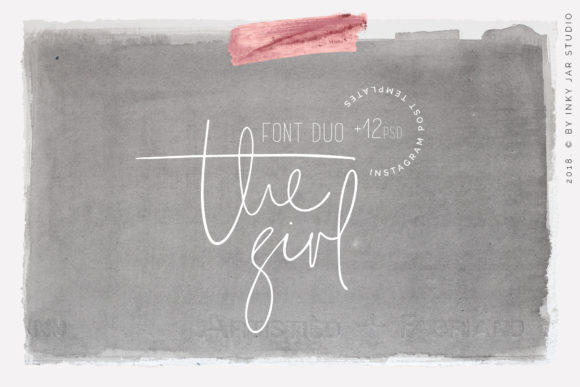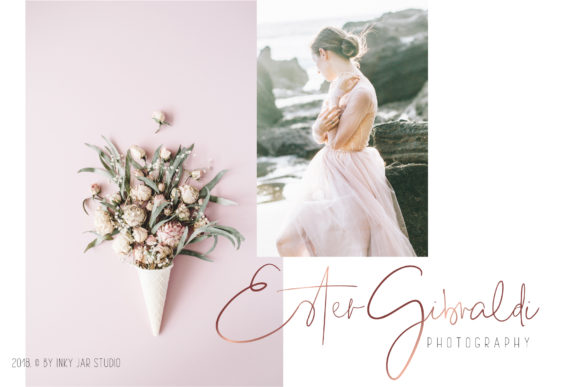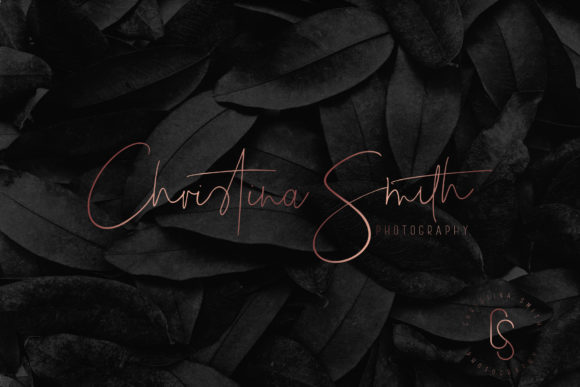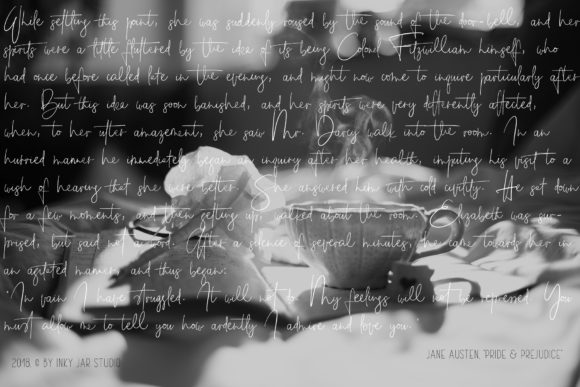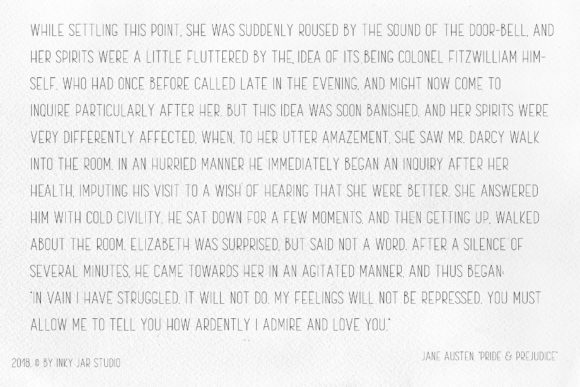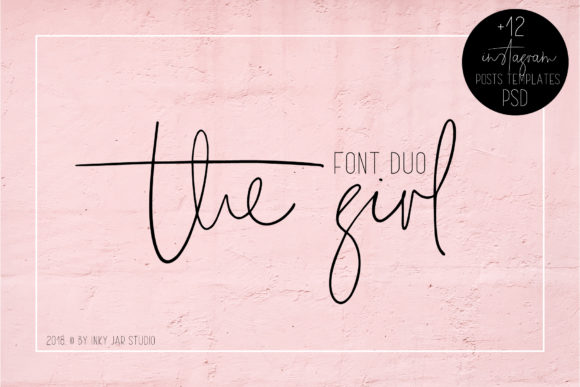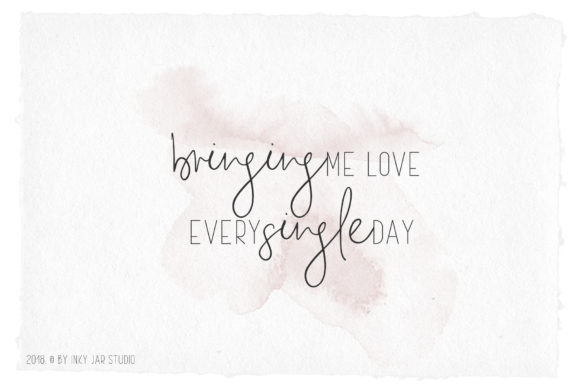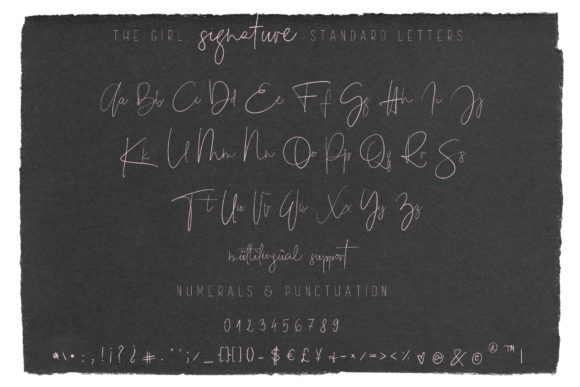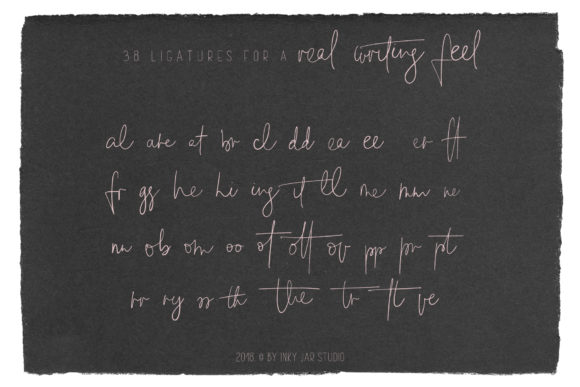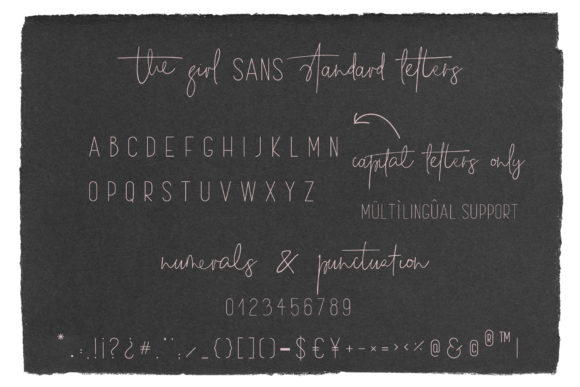
The Girl Duo Font
About The Girl Duo Font
The Girl Font Duo is a perfect combo for Instagram posts, quotes or stories as well as for feminine branding. The script version has a loose, messy signature style and the sans is a thin, elegant, block font which is good looking on its own as well as combined with the script.
The script version also has many ligatures t get that messy, effortless handwritten vibe. The sans is a elegant, thin block font with only capital letters.